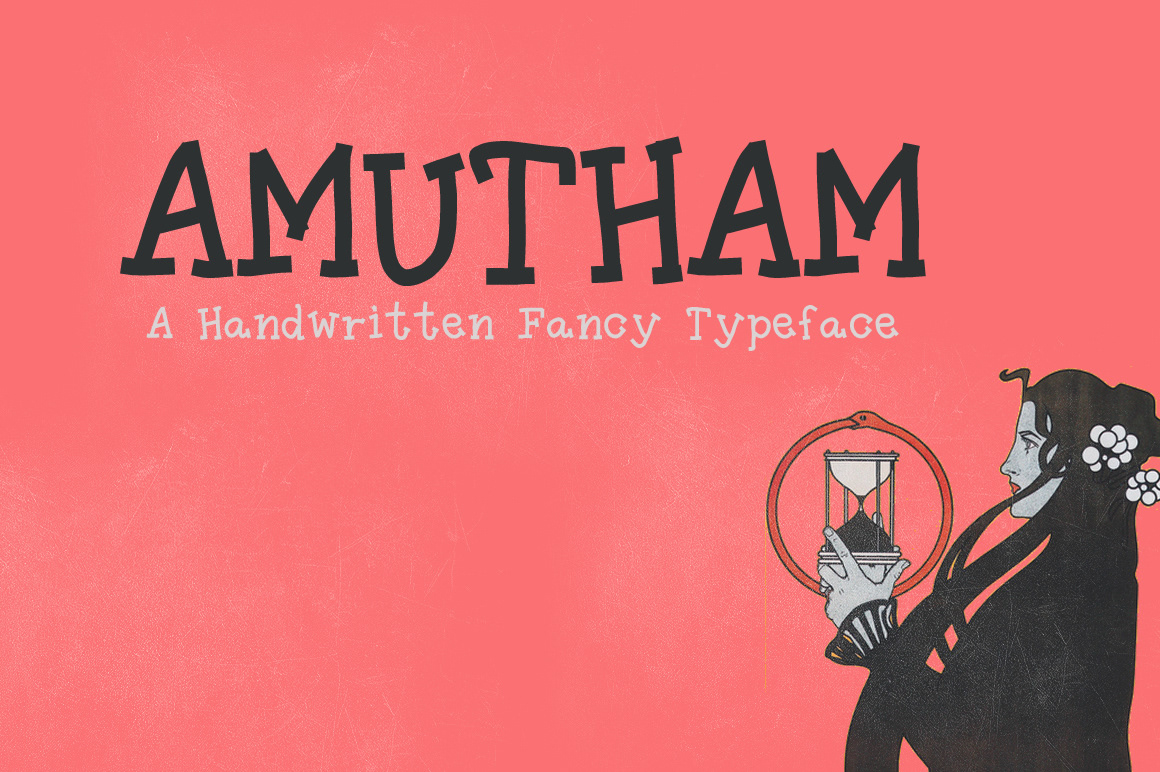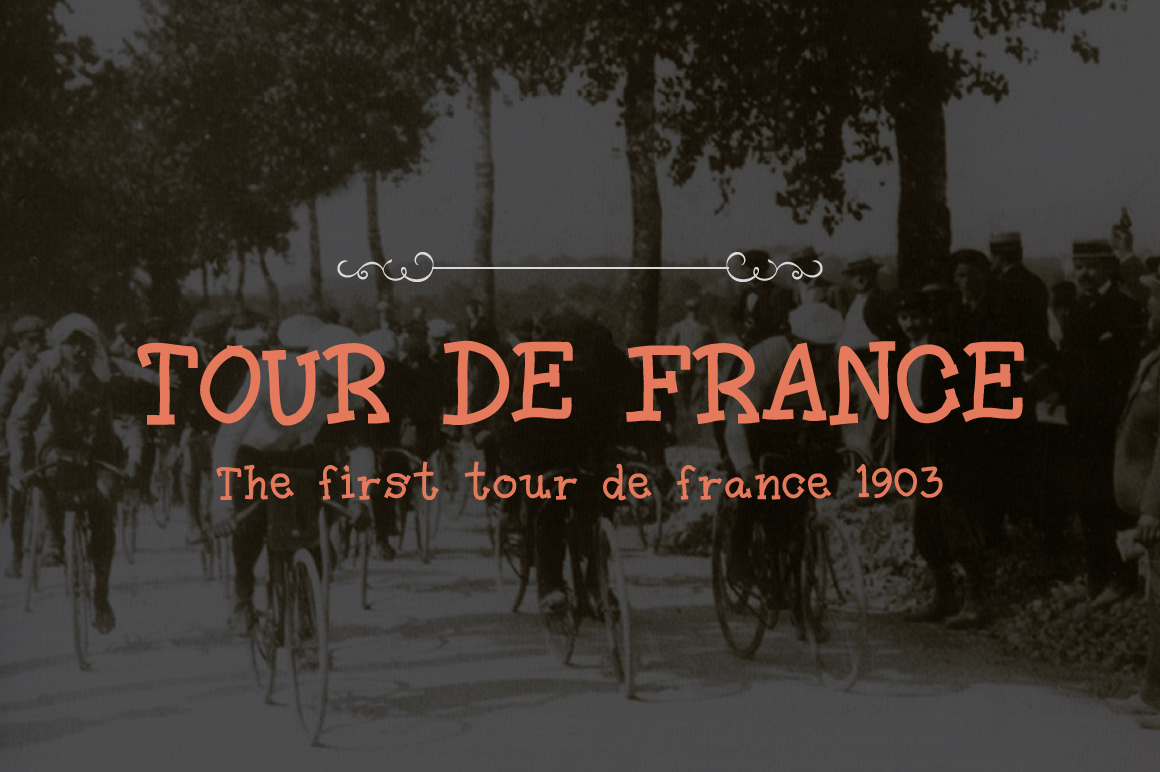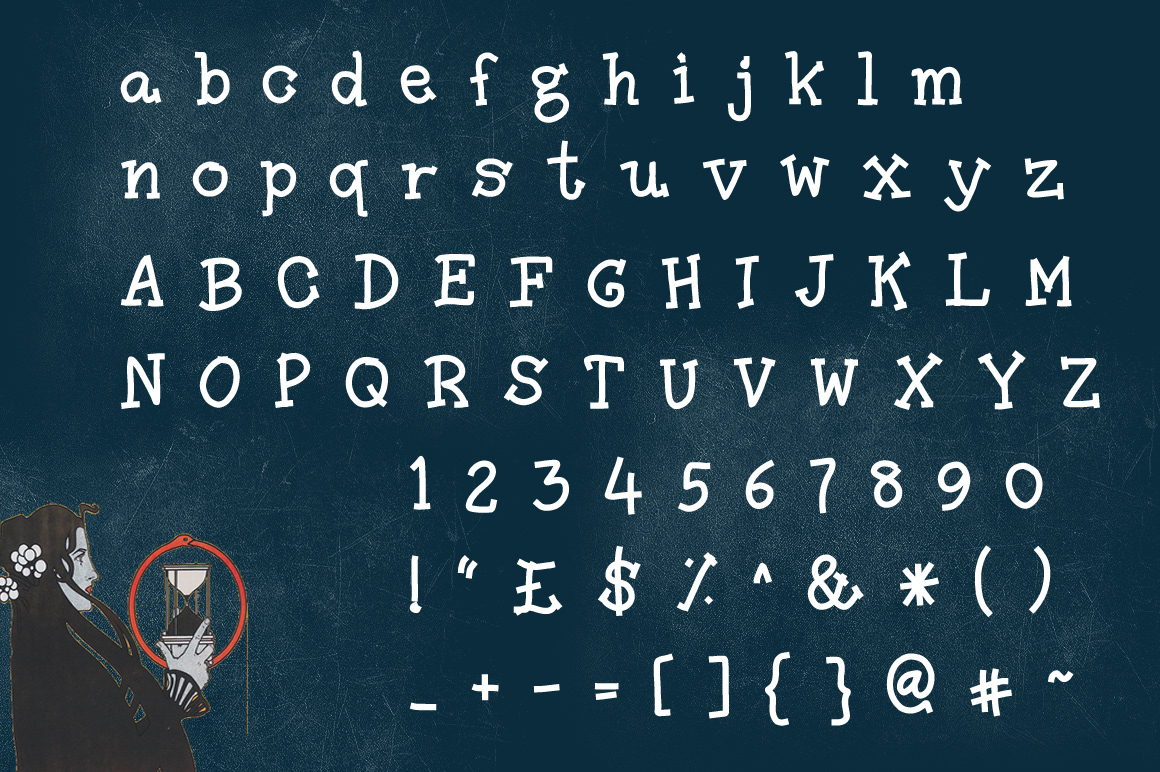
Amutham is a slab yet handwritten fancy typeface. It can used in your any kind of design. It'll fit all the place with it's unique, elegant, script look.
Amutham is a slab yet handwritten fancy typeface. It can used in your any kind of design. It'll fit all the place with it's unique, elegant, script look. Available here -- https://creativemarket.com/enathu/26030-Amutham-Typeface